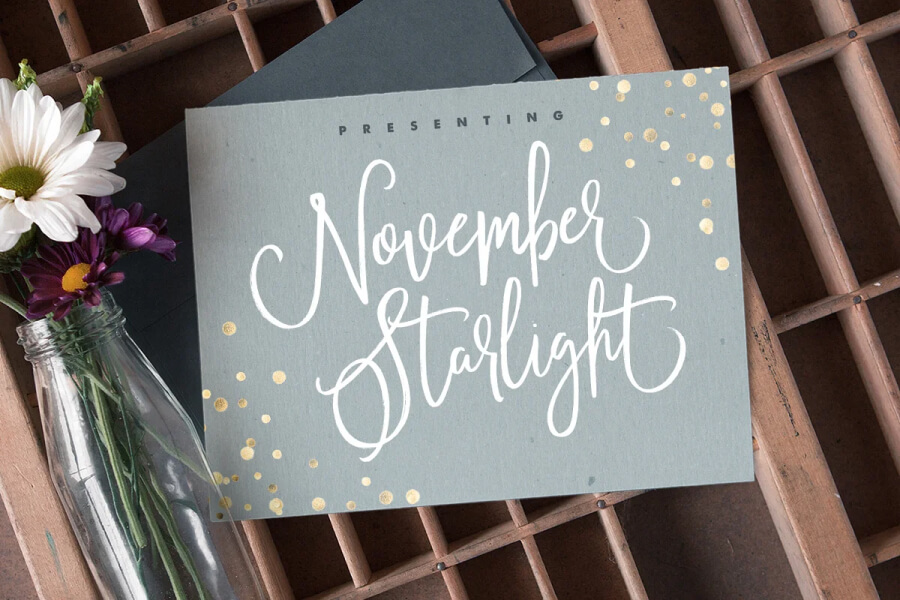
November Starlight is a lovingly hand-painted script font, fantastically elegant & eccentric with a sprinkle of carefree fun. November Starlight doesn’t play by the rules – with extra bouncy characters, long vertical brush strokes and authentic hand-painted edges, it’s bound to make a bold statement on anything from greeting cards and invitations, to personalized logos and handwritten quotes.
November Starlight • A cursive font containing upper & lowercase characters, numerals and many punctuation.
November Starlight Alt • This is a second version of November Starlight, with a completely new set of lowercase characters. If you want to avoid letters looking the same each time to recreate a custom-made style, or try a different word shape, simply switch to this font for an additional layout option.